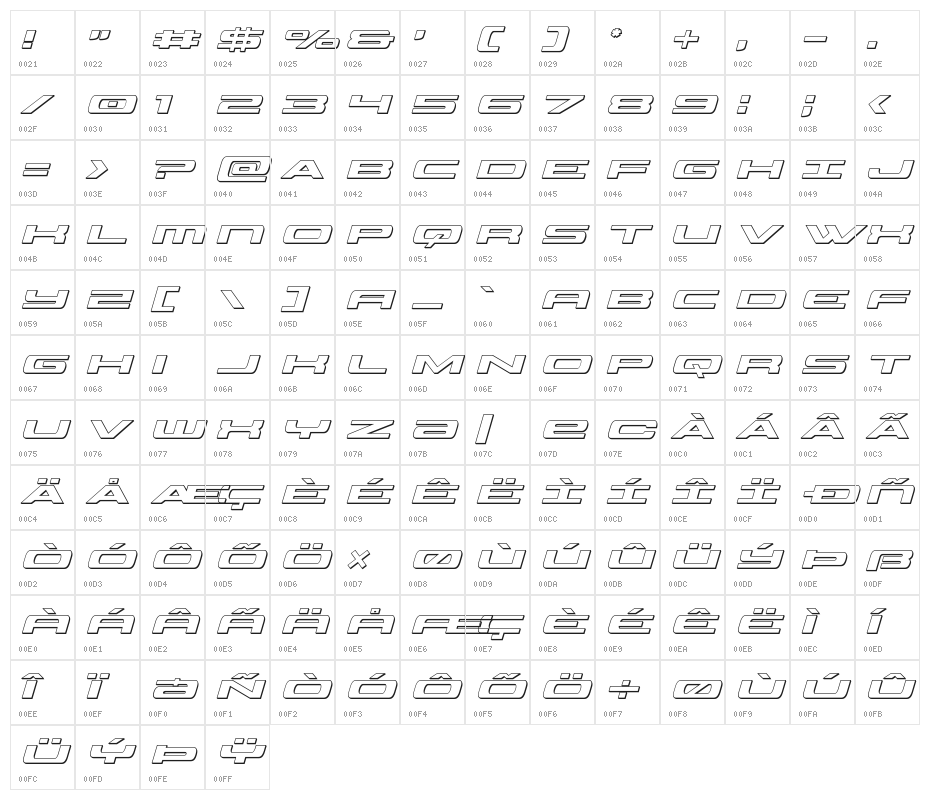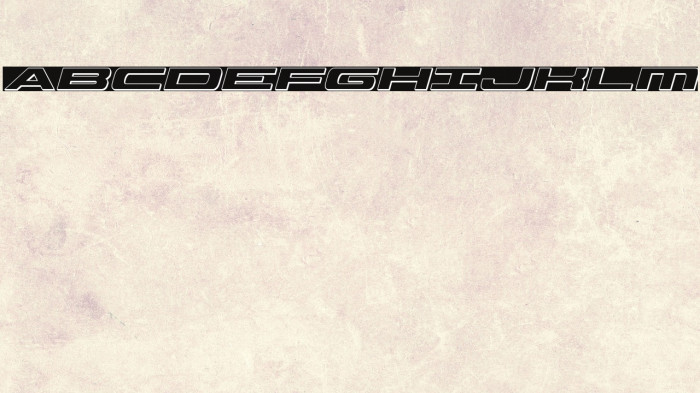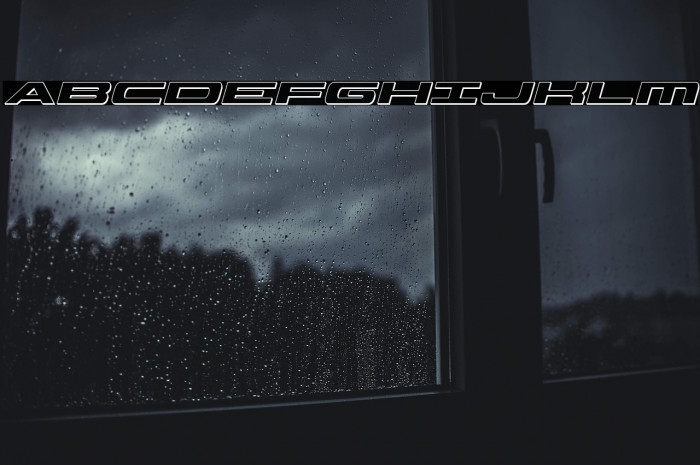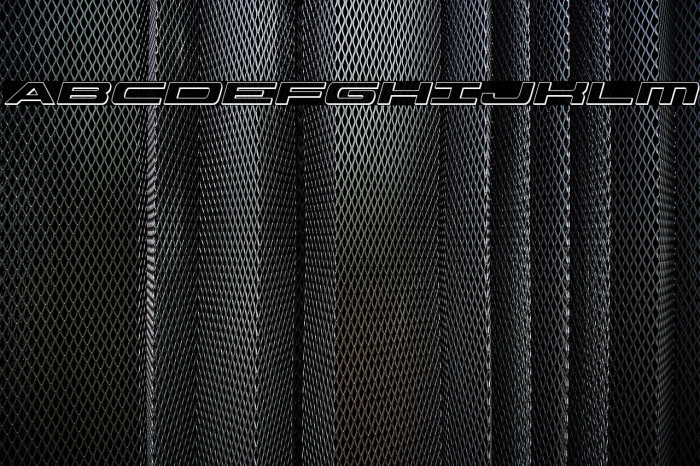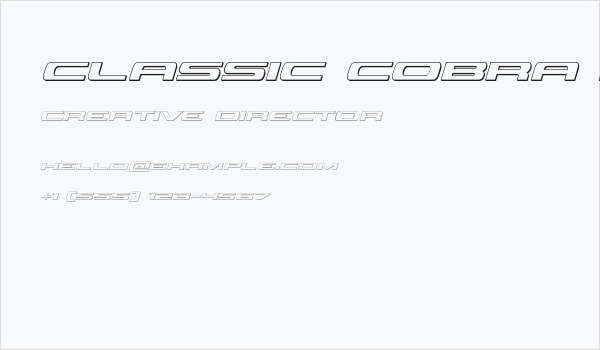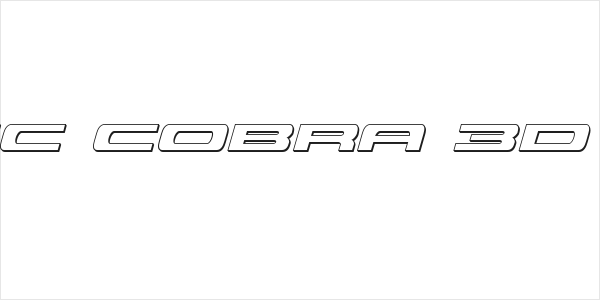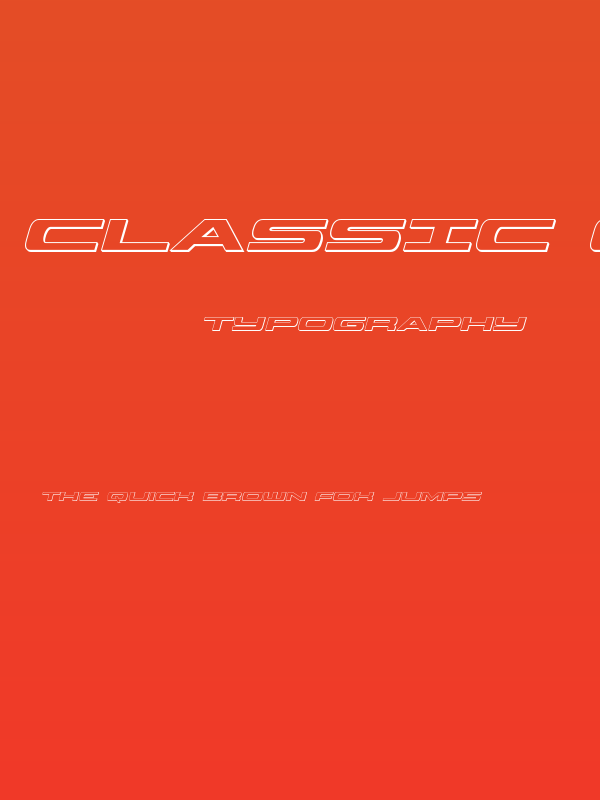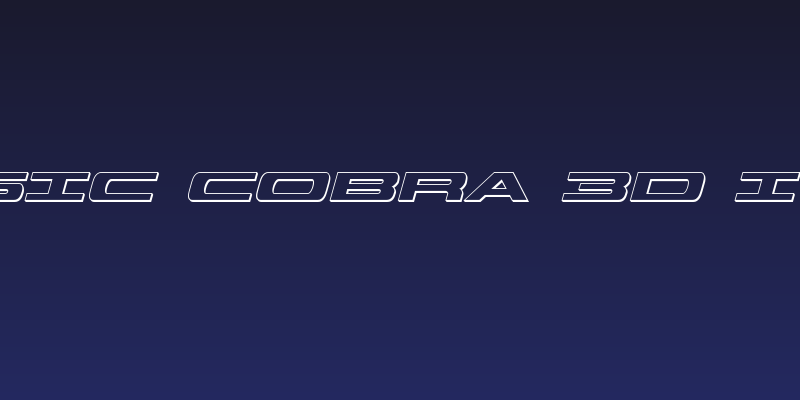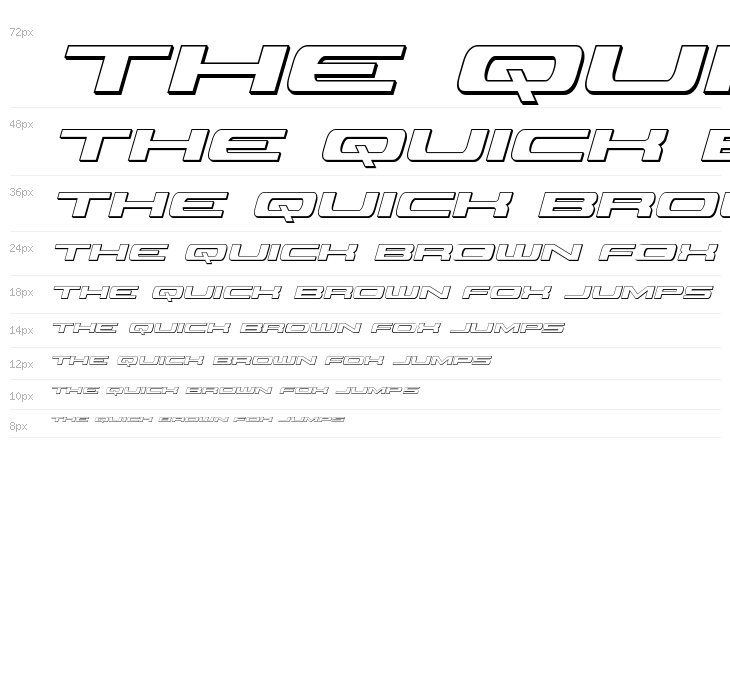
Classic Cobra 3D Italic Font
Classic Cobra 3D Italic Description
This font features a bold, three-dimensional design with italicized characters that convey a sense of movement and dynamism. The uppercase and lowercase letters are designed with a consistent geometric style, characterized by sharp angles and clean lines. The numbers and special characters maintain this cohesive look, making the font suitable for creating a futuristic or tech-inspired aesthetic. The 3D effect is achieved through a clever use of outlines and shading, adding depth and visual interest. This font is ideal for projects that require a modern and edgy appearance.